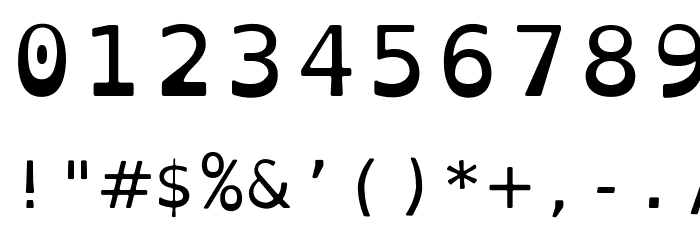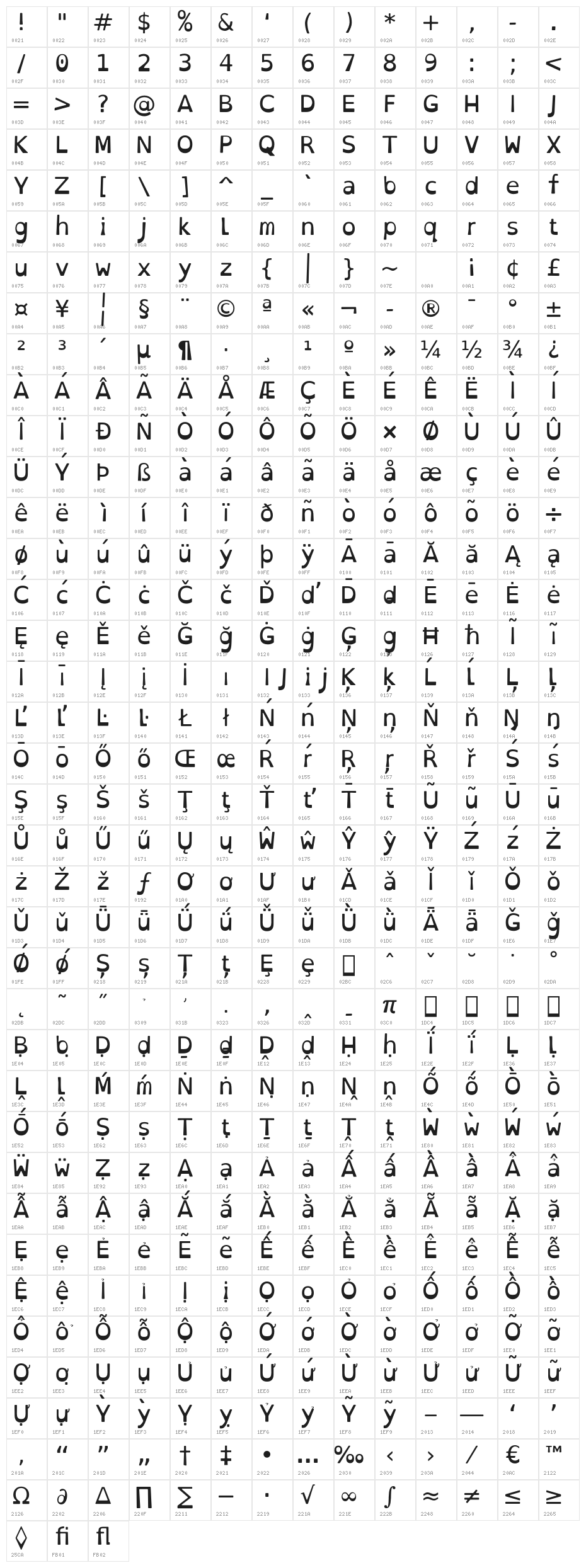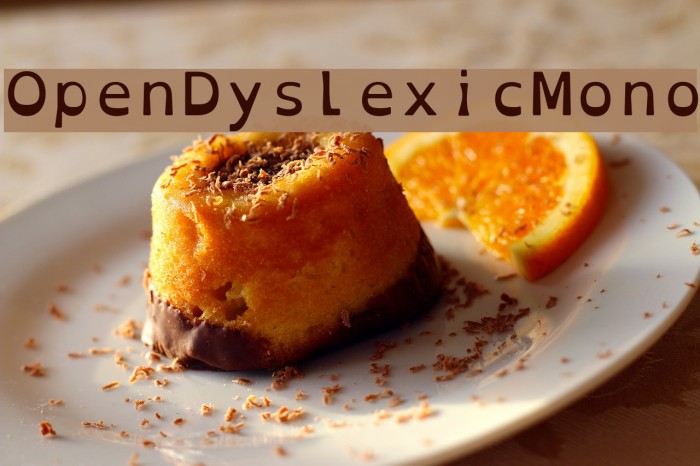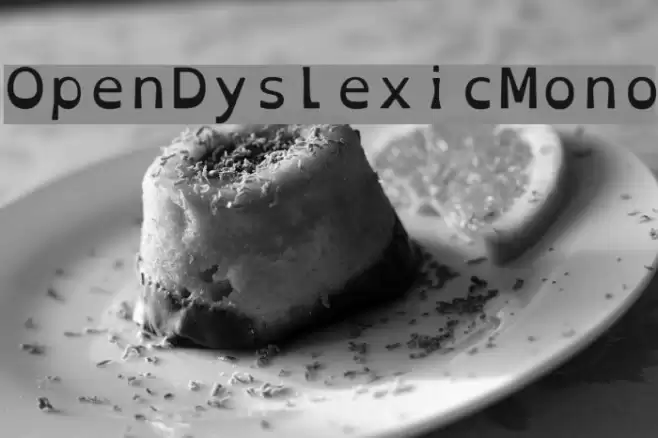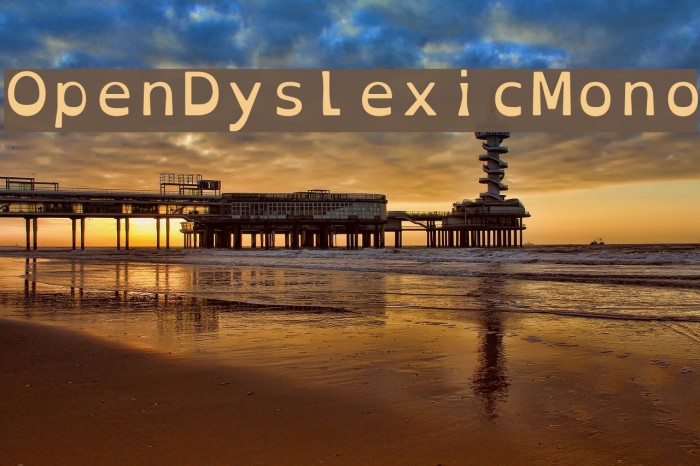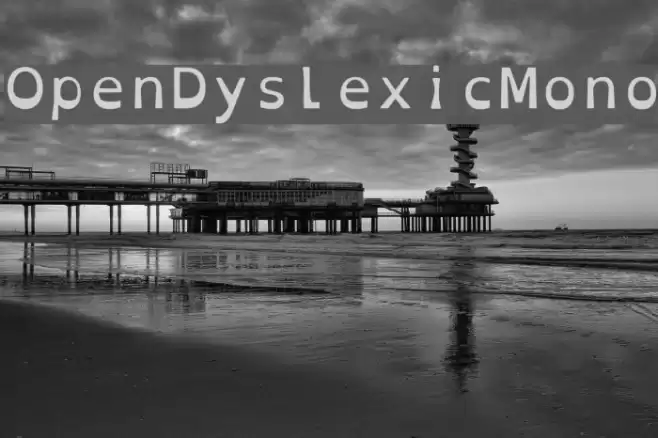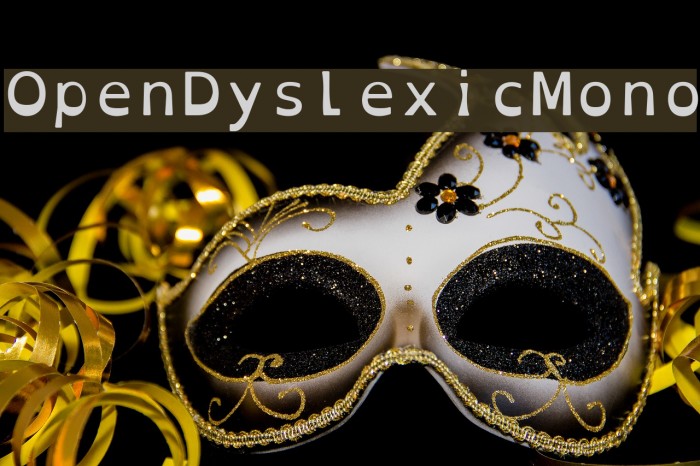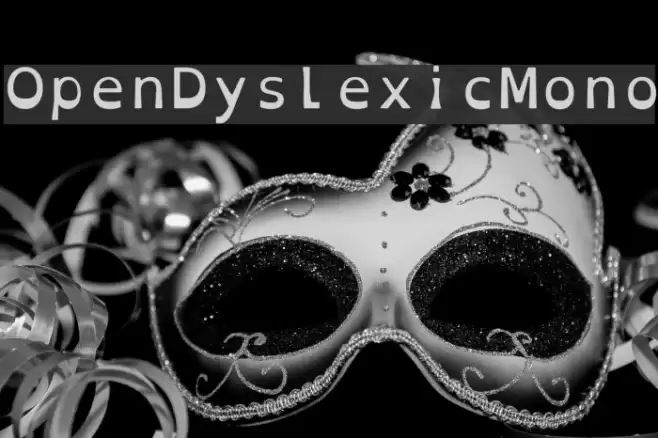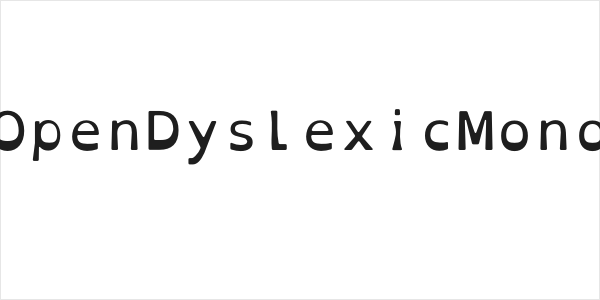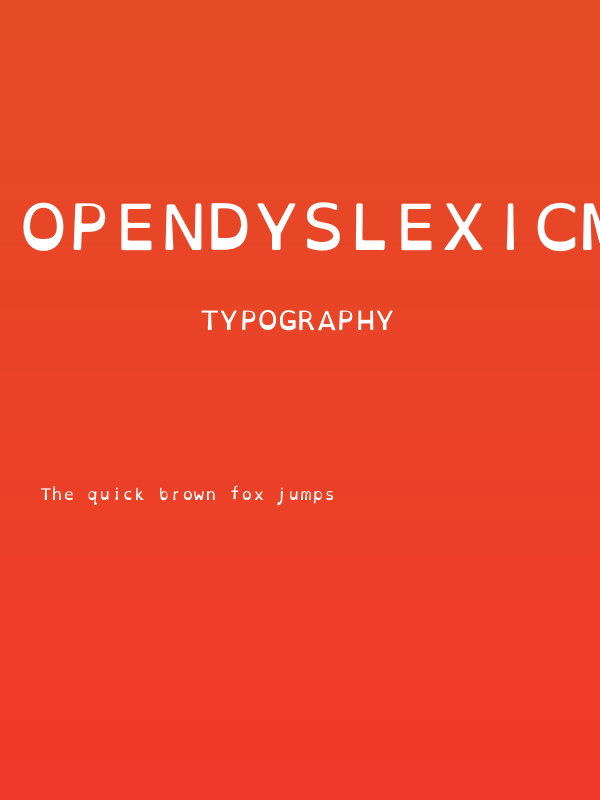
OpenDyslexicMono Font
OpenDyslexicMono Description
This font is designed with accessibility in mind, featuring distinct letterforms that help differentiate similar characters to aid readability. The characters have a unique, slightly weighted appearance at the bottom, which helps anchor each letter and reduces letter confusion. The font maintains a monospaced structure, ensuring equal spacing for each character, which is particularly useful in coding and text alignment. The overall design is clean and straightforward, with a modern touch that makes it suitable for various applications. The rounded edges and simple lines contribute to its legibility, making it a practical choice for users with dyslexia or those seeking a clear and readable typeface.
| Use Case | Body text, Coding, Educational materials |
| Proposed Projects | Ideal for coding, educational materials, accessible web design, and any project requiring enhanced readability. |